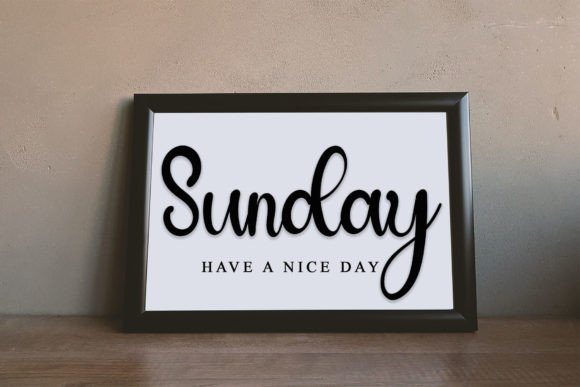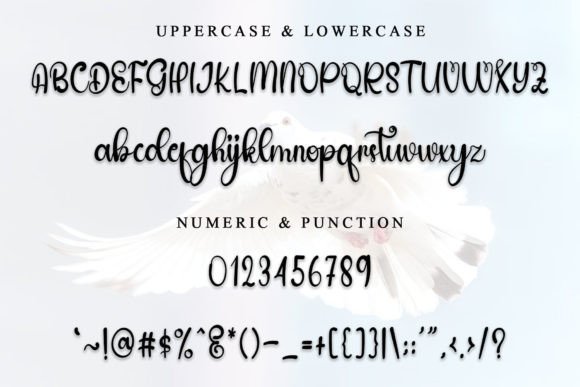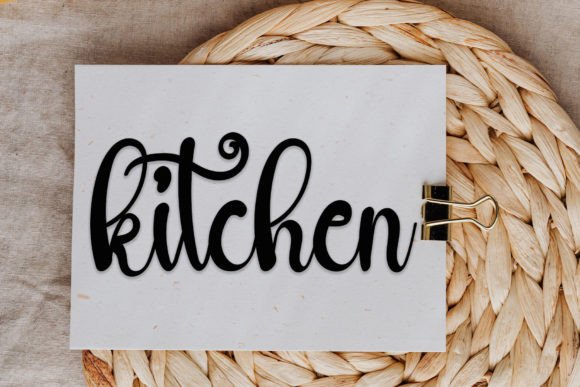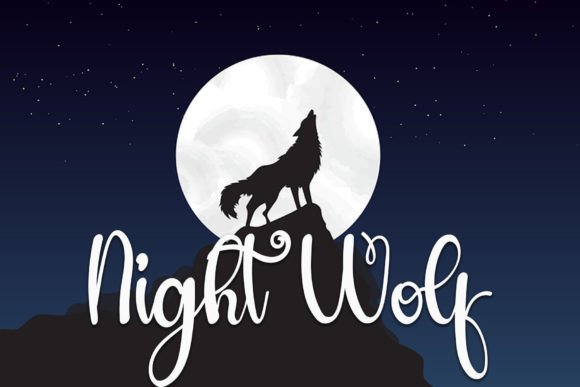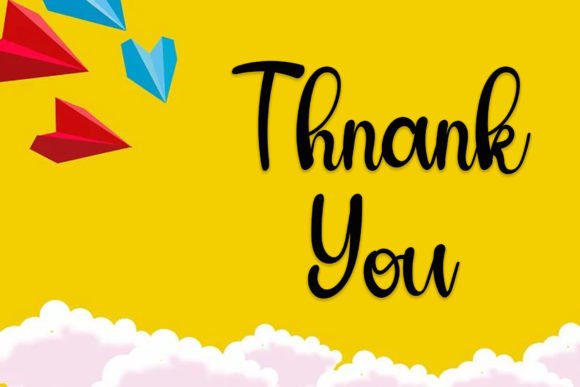
The Perfect Match for Your Next Creative Project
Have you ever been browsing through a beautiful magazine or social media feed, and suddenly you’re inspired to create something stunning? That’s exactly what happened to me when I stumbled upon the Animals Font. Its elegant touch and timeless style captured my heart, and I knew I had to learn more about it.
The Animals Font is a unique and beautiful handwritten font designed to add a personal touch to your favorite projects. Whether you’re a graphic designer, artist, or simply a creative enthusiast, this font is sure to impress. Its versatility makes it perfect for a wide range of applications, from posters and flyers to wedding invitations and social media graphics.
As a designer, you know how valuable it is to have a reliable and high-quality font at your disposal. The Animals Font is a must-have for any creative project, and its distinct style is sure to make your designs stand out from the crowd.
Key Features of “Animals Font”
- Unique Characteristics: Features a unique blend of hand-drawn and digital elements, with intricate details and textures
- Font Style: Offers a range of font styles, including Regular, Bold, Italic, and Bold Italic
Animals Font Review
Overall, I’m quite impressed with the Animals Font – it’s a unique and fun font that’s perfect for projects where you want to add some whimsy and personality.
- It’s a great choice for animal-themed projects or children’s content.
- The font’s playful and cursive design makes it easy to read.
- The font’s consistency and coherence across different weights and styles make it easy to use.
- The font may not be suitable for formal or professional projects due to its playful nature.
- The font’s complexity may make it difficult to pair with other fonts.
- The font may not be available in as many languages as some other fonts.
In conclusion, I think the Animals Font is a great addition to any designer’s toolkit, but it’s essential to consider its limitations when choosing a font for a project.
Tips for Getting the Most Out of the Animals Font
1. Use the Animals Font to create playful and engaging text elements.
2. Pair the Animals Font with other fun and creative fonts for a unique look.
3. Experiment with different text styles and colors to match your brand or design aesthetic.
1. Children’s books and educational materials.
2. Pet-related businesses and marketing materials.
3. Fun and creative social media posts and graphics.
Alternatives to Animals Font for Designers
Great Vibes is a modern, handwritten font perfect for creative projects that need a touch of elegance. It’s ideal for headings, quotes, and other text elements where a personal touch is required. Great Vibes is more versatile than Animals Font, as it can be used in a wider range of projects, from branding to editorial design.
Alex Brush is a beautiful, handwritten font that’s perfect for projects that need a touch of sophistication. It’s ideal for headings, titles, and other text elements where a sense of luxury is required. Alex Brush is more refined than Animals Font, making it suitable for high-end branding and editorial design projects.
Pacifico is a beautiful, modern font that’s perfect for projects that need a touch of tropical elegance. It’s ideal for headings, titles, and other text elements where a sense of relaxation is required. Pacifico is more versatile than Animals Font, as it can be used in a wide range of projects, from branding to web design.
Dancing Script is a beautiful, handwritten font that’s perfect for projects that need a touch of whimsy. It’s ideal for headings, titles, and other text elements where a sense of playfulness is required. Dancing Script is more expressive than Animals Font, making it suitable for creative projects that need a bold, eye-catching design.